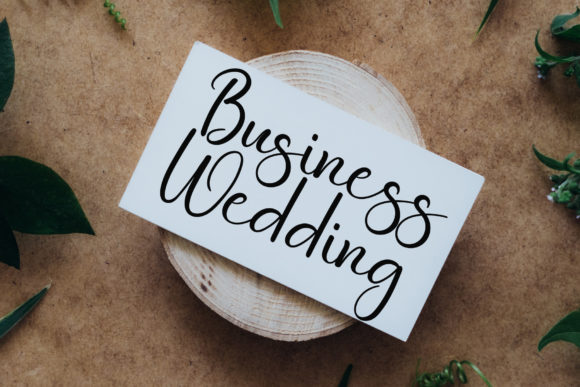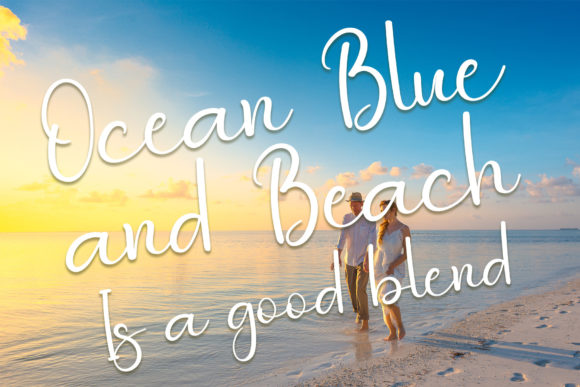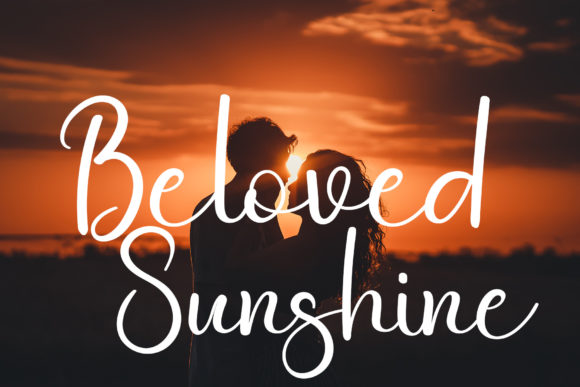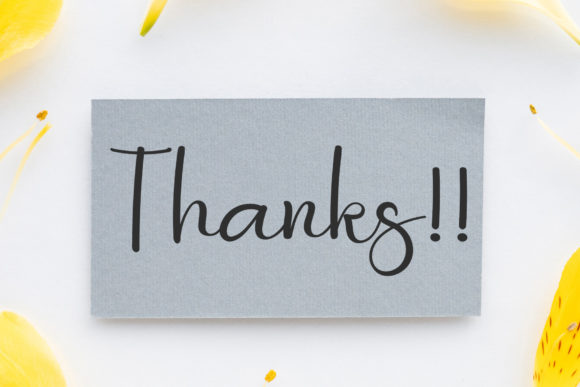
Daisy Family Font: Elevate Your Designs with Elegance and Sophistication
In the world of design, typography plays a crucial role in conveying the tone and personality of a brand or product. A well-chosen font can elevate your design from ordinary to extraordinary, making it essential to select a font that resonates with your creative vision. If you’re on the hunt for a font that exudes elegance, sophistication, and high-quality vibes, look no further than the Daisy Family Font. In this article, we’ll explore the ins and outs of this beautiful script font and why it’s a must-have for designers and crafters alike.
What is Daisy Family Font?
Daisy Family Font is a stunning, free-flowing script font designed specifically for creative projects that demand a touch of luxury and refinement. Whether you’re working on packaging products, invitation cards, flyers, mockups, event posters, or any other design that requires a high-end feel, this font is sure to impress. Its beautiful and balanced character makes it an excellent addition to your design arsenal, allowing you to create visually stunning pieces that leave a lasting impression.
Key Features of Daisy Family Font
So, what sets Daisy Family Font apart from other script fonts on the market? Here are some of its key features:
- Free-flowing script: Daisy Family Font boasts a fluid, cursive design that adds a touch of elegance to any project.
- Beautiful and balanced character: Each letter is carefully crafted to ensure a perfect balance of curves and lines, making it easy to read and visually appealing.
- High-quality vibes: This font is designed to give your designs a professional, high-end feel that’s perfect for luxury brands, weddings, and other special events.
- Versatile: From packaging products to event posters, Daisy Family Font can be used for a wide range of design applications.
Why Designers and Crafters Love Daisy Family Font
Designers and crafters alike are drawn to Daisy Family Font for several reasons:
- Ease of use: This font is incredibly easy to use, even for those who are new to design or typography.
- Customization options: With Daisy Family Font, you can experiment with different colors, sizes, and styles to create a unique look that suits your brand or project.
- Time-saving: Instead of spending hours designing a custom font, you can use Daisy Family Font to achieve professional-looking results in no time.
Tips for Using Daisy Family Font
To get the most out of Daisy Family Font, here are some expert tips:
- Pair it with contrasting fonts: Combine Daisy Family Font with a bold, sans-serif font to create visual interest and hierarchy.
- Experiment with colors: Try pairing the font with pastel colors, metallic accents, or bold brights to add personality to your design.
- Use it for headlines and titles: Daisy Family Font is perfect for grabbing attention and adding a touch of sophistication to your headlines and titles.
- Don’t be afraid to get creative: With Daisy Family Font, you can experiment with different styles, from subtle and elegant to bold and playful.